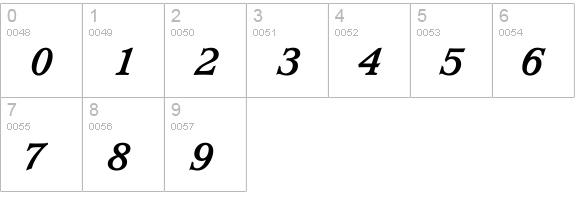
WaverlyBoldItalicTab Font Details
WaverlyBoldItalicTab font is a stunning display typeface that exudes elegance and sophistication. Its bold and italic design adds a touch of flair to any project, making it perfect for headings, titles, and logos. With its unique tabular figures, this font is also ideal for creating organized and visually appealing tables and charts. What sets WaverlyBoldItalicTab font apart is its versatility and attention to detail. Each letter is meticulously crafted, with smooth curves and precise strokes that create a polished and professional look. Whether you're designing a website, creating a print advertisement, or working on a branding project, this font will make your work stand out. And the best part? WaverlyBoldItalicTab font is free! That's right, it's freely available to download at FontsMarket.com. Now you can add a touch of sophistication to your designs without breaking the bank. Don't miss out on this fantastic opportunity to elevate your typography game. So go ahead, download WaverlyBoldItalicTab font today and let your creativity soar. Whether you're a professional designer or a hobbyist, this font is sure to become a staple in your font library. Say goodbye to boring and hello to stylish with WaverlyBoldItalicTab font.